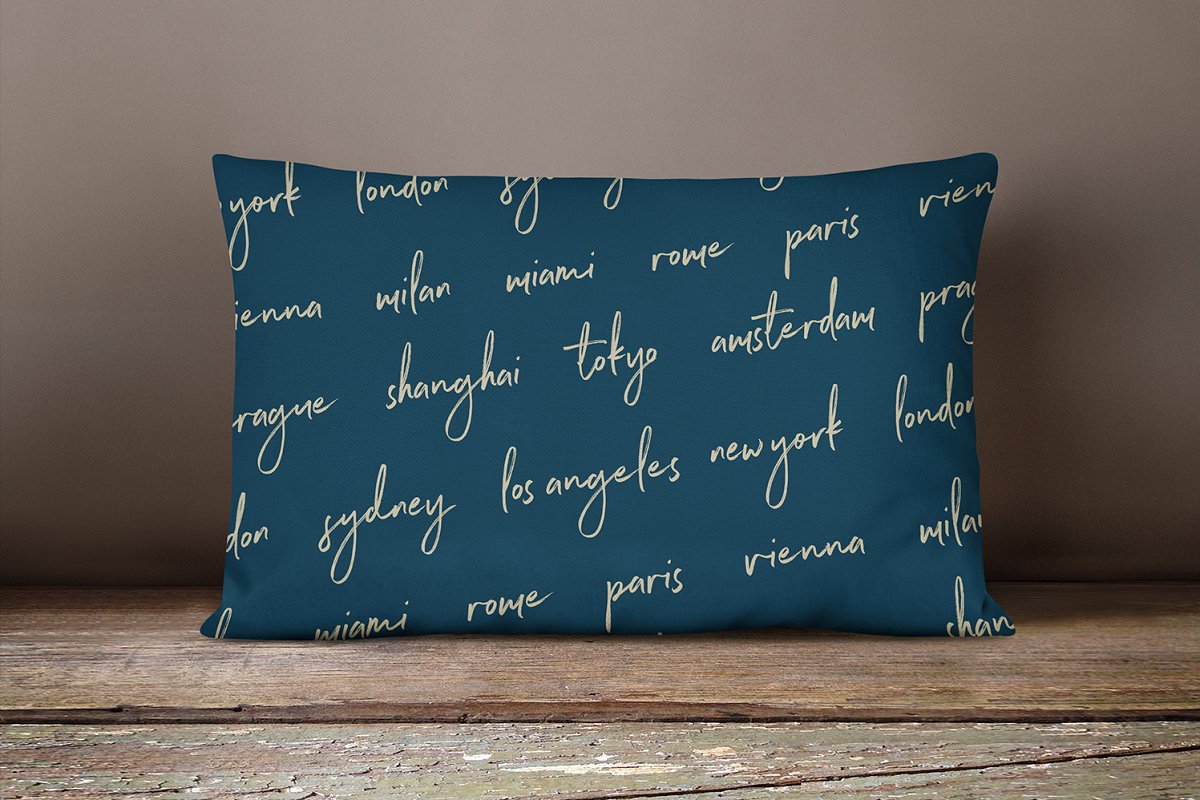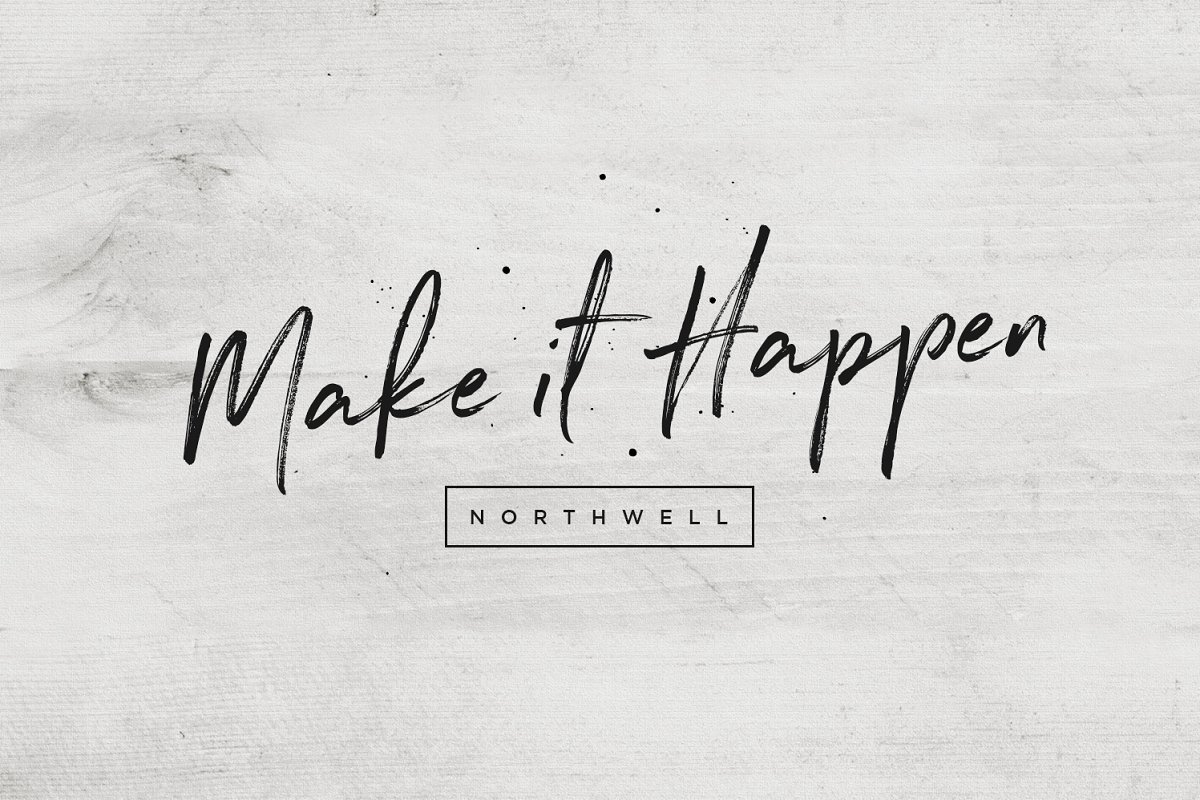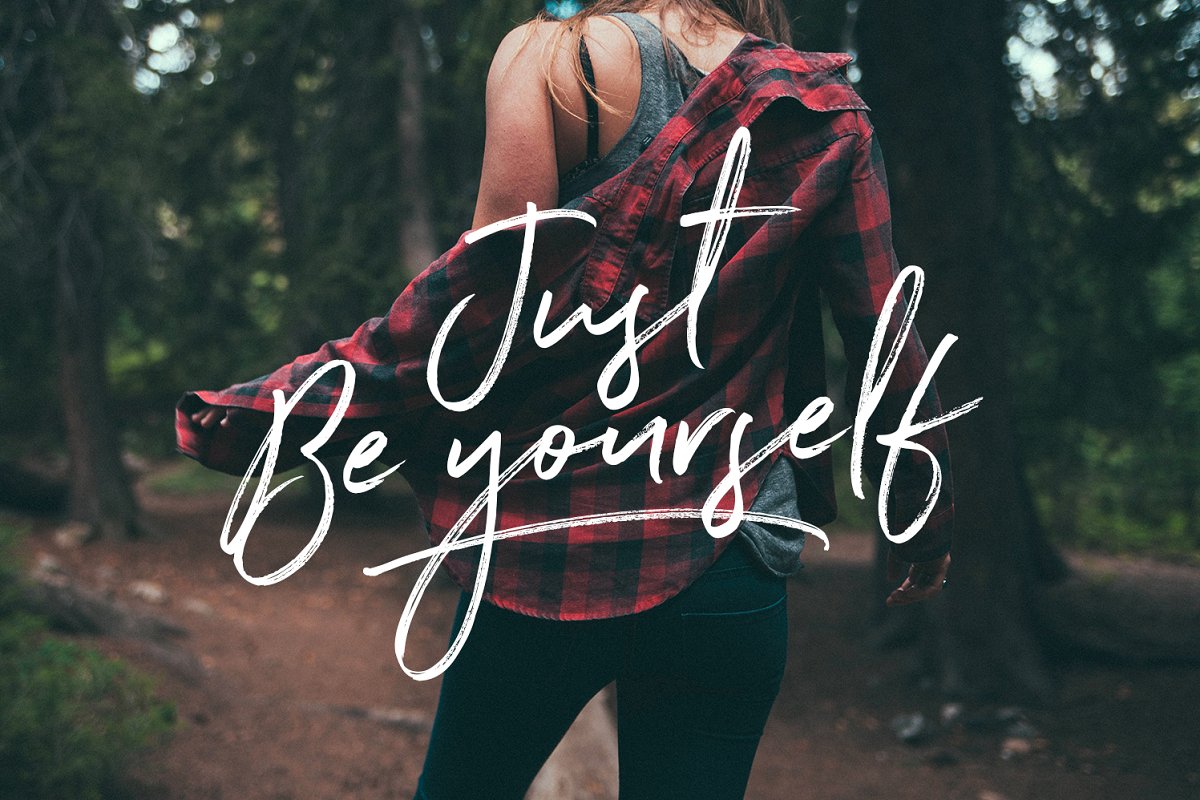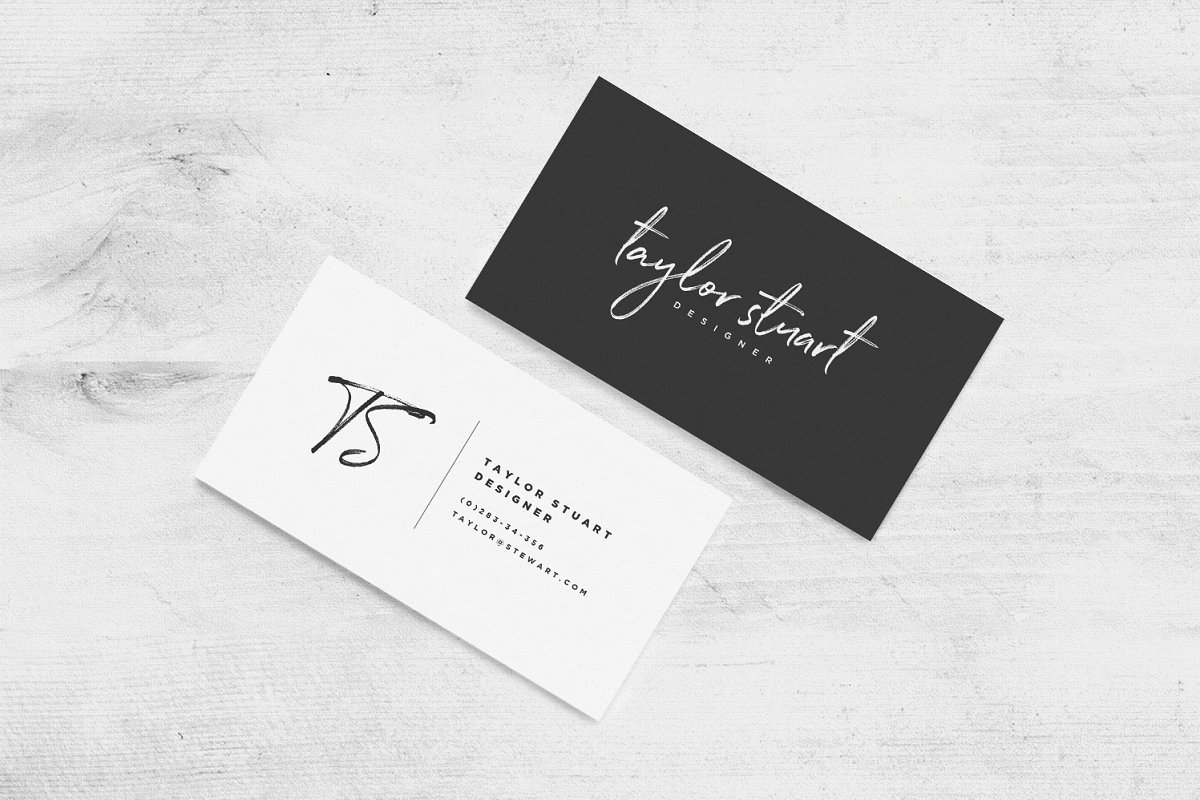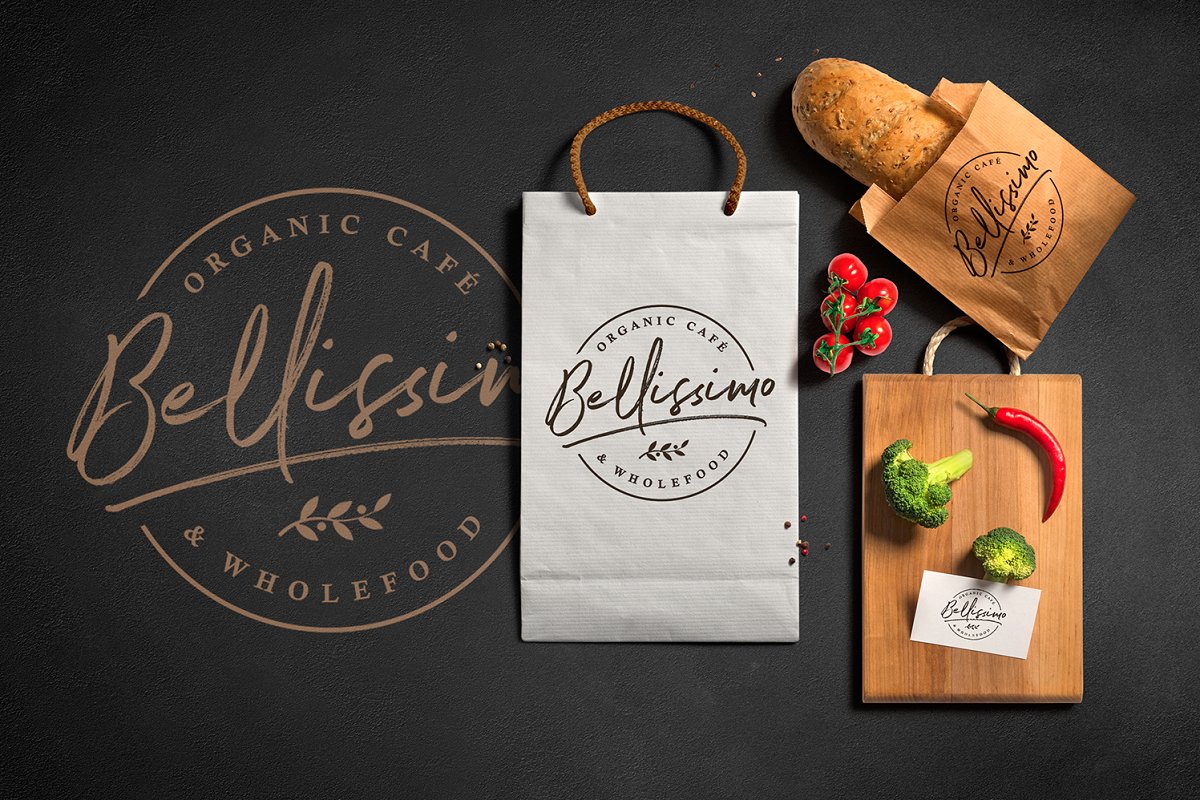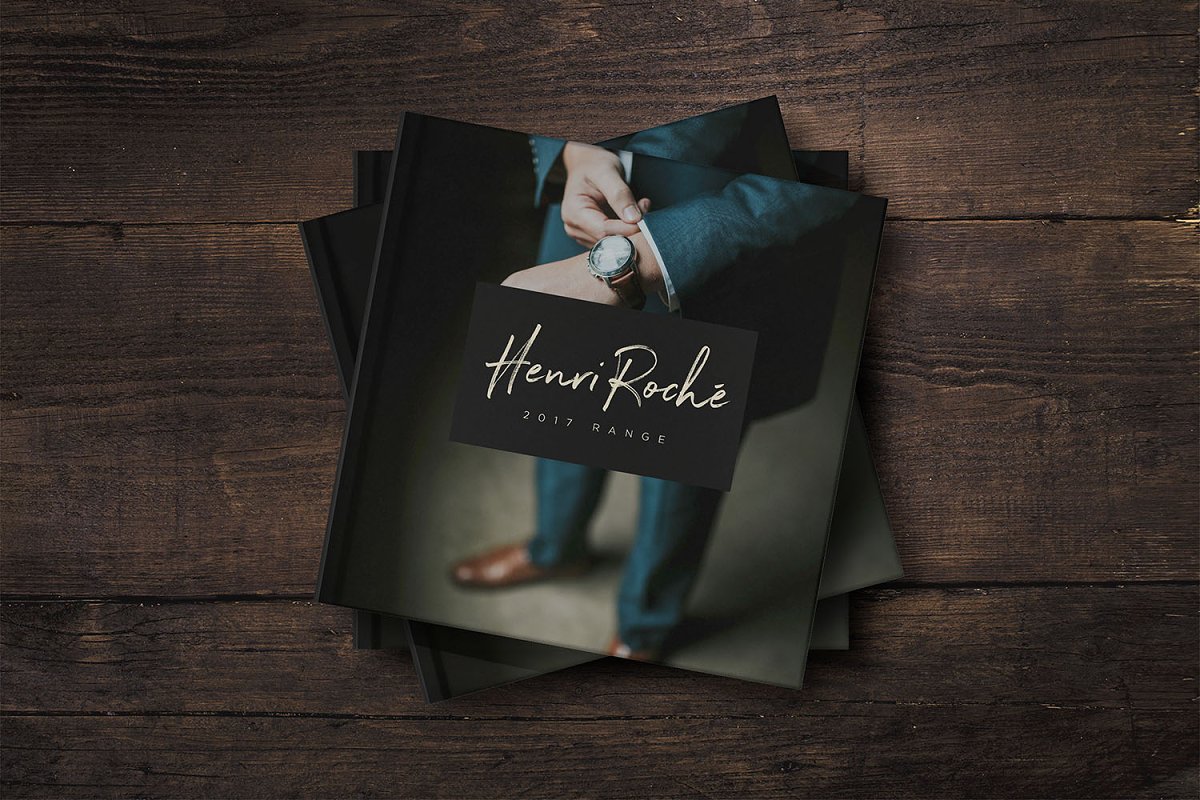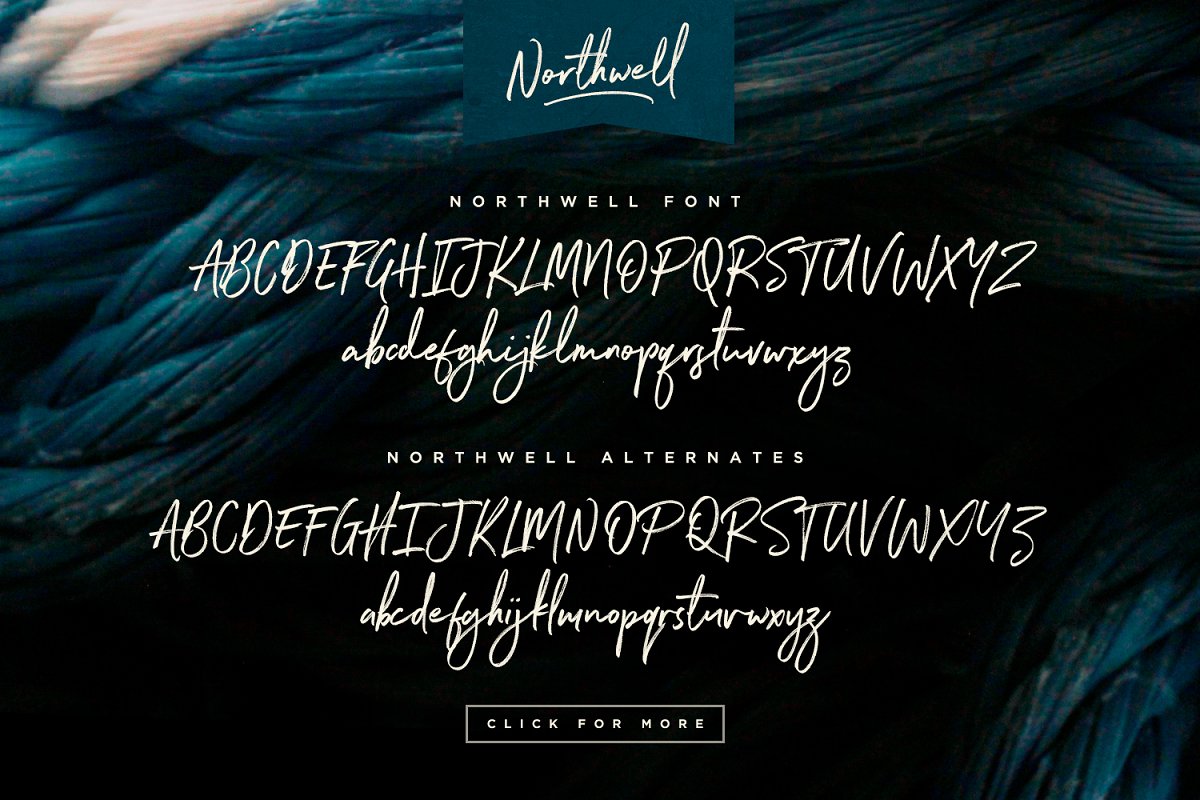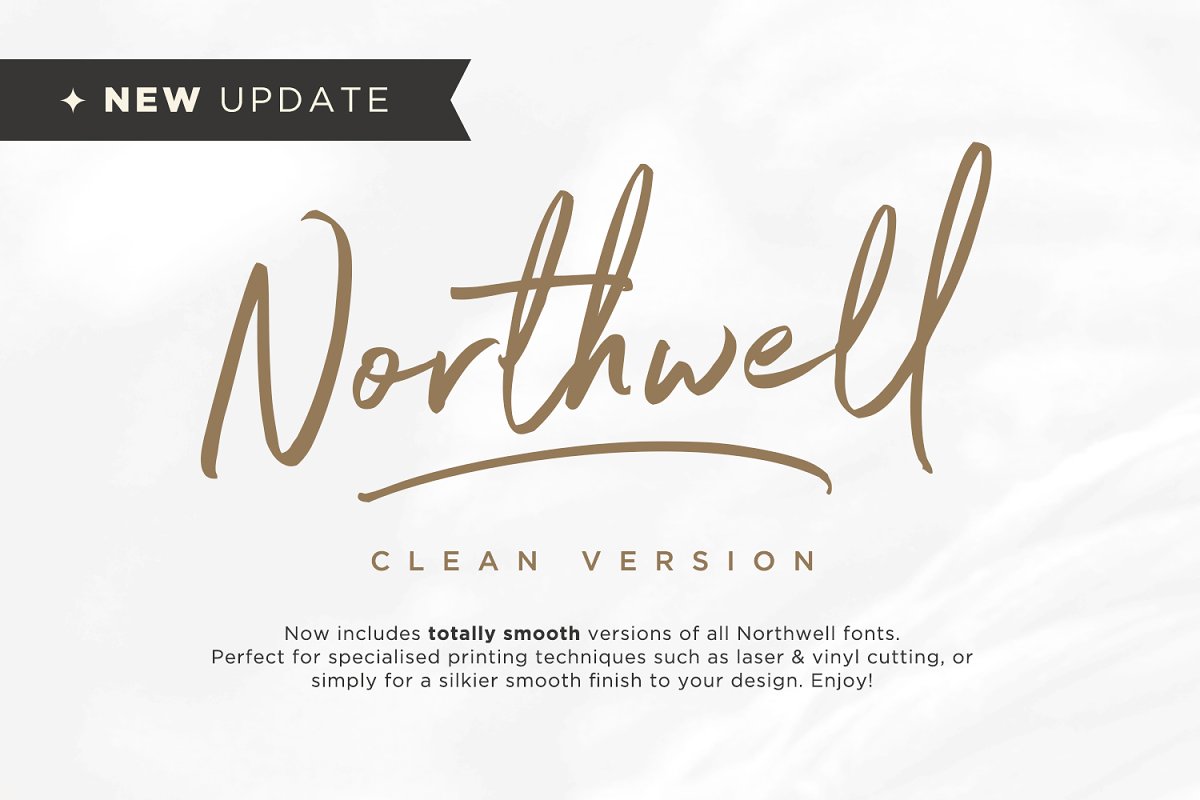
About the Northwell New Update Font
Introducing: Northwell! A rustic, dapper handwritten font with a personal charm, With quick dry strokes and a signature style, Northwell is perfect for branding projects, homeware designs, product packaging – or simply as a stylish text overlay to any background image, ★ New Update • Northwell Clean! Northwell has now been updated to include 2 styles; a rustic textured version, and a totally clean & smooth version
This gives you the option to completely switch the style of your font at the click of a mouse, whether you’re looking for a more rustic, hand-made style, or a silky smooth finish, Northwell includes 6 font files;1, Northwell • A handwritten script font containing upper & lowercase characters, numerals and a large range of punctuation
2, Northwell Alt • This is a second version of Northwell, with a completely new set of both lower and uppercase characters, If you wanted to avoid letters looking the same each time to recreate a custom-made style, or try a different word shape, simply switch to this font for an additional layout option
3, Northwell Swash • A set of 20 hand-drawn swashes, the perfect finishing touch to underline your Northwell text, Simply install this as a separate font, select it from your font menu and type any A-U character to create a swash, 4, Northwell Clean, Northwell Clean Alt & Northwell Clean Swash • Clean versions of the above 3 fonts, with the rough brush texture removed and replaced with a completely smooth edge